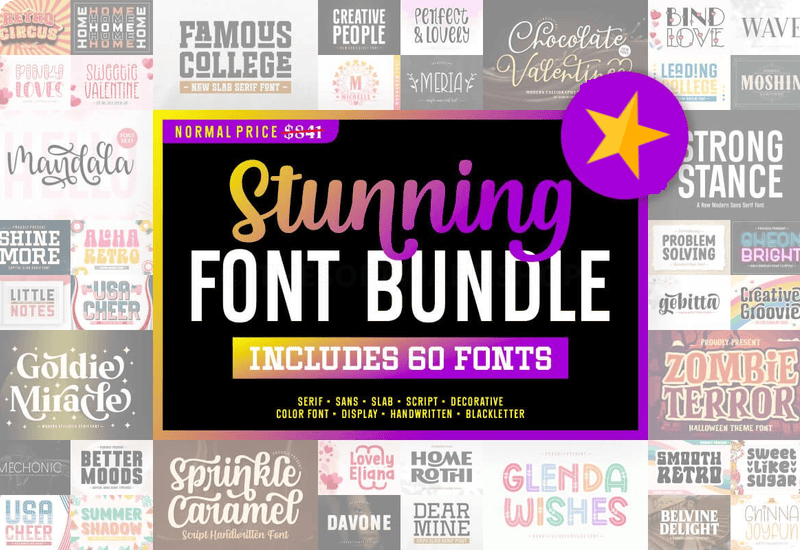
Design enthusiasts and creative professionals, it’s time to feast your eyes on the ultimate typography deal that’s too good to pass up! The Stunning Font Bundle, meticulously curated by the renowned typeface artist Jasm of 7NTypes, is now available at no cost – yes, you read that right, it’s FREE!
Why the Stunning Font Bundle is a Must-Have for Designers
This font bundle caters to a multitude of projects, styles, and audiences. Whether you’re crafting a vintage-themed poster, designing a modern website, or adding a touch of whimsy to your branding, these fonts have got you covered. We’ll delve into a handful of the premium fonts, spotlighting their unique charms and how they can be applied to your various projects.
Famous College Slab Serif Font
In need of that academic, Ivy League feel? The Famous College Slab Serif Font delivers the prestige of higher education to your designs. Perfect for university-related materials, sports team logos, and more.
Davone Sans Serif Font
Minimalism meets sophistication in Davone Sans Serif. With its clean lines and modern style, it’s ideal for corporate identities, digital platforms, and user interfaces that require clarity and a touch of class.
Wave Serif Font
It’s all in the name – Wave brings flowing elegance to any print or digital piece. Think book covers, boutique packaging, or serene spa branding.
Strong Stance Sans Serif Font
Showcase strength and solidity with Strong Stance, a font that makes a statement without saying a word. Utilize it for powerful headlines, bold branding, and assertive advertising campaigns.
Moshin Blackletter Font
Transport your audience to the grandeur and mystique of centuries past. Ideal for breweries, tattoo parlors, and any project that desires a Gothic touch.
Home Stacked Style Display Font
When your design demands a playful and stacked typographic approach, Home Stacked Style Display Font delivers layers of fun and creativity.
The list continues, with fonts like the cheerful Usa Cheer Color Fonts Font, the elegant Glenda Wishes Decorative Font, the romantic Chocolate Valentines Script, and the groovy Kinger Burger Display Font, showing the incredible diversity of this bundle.